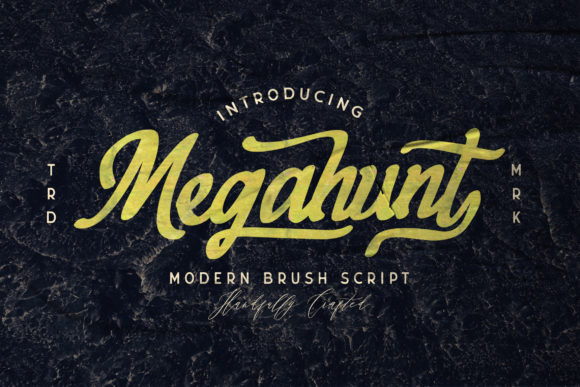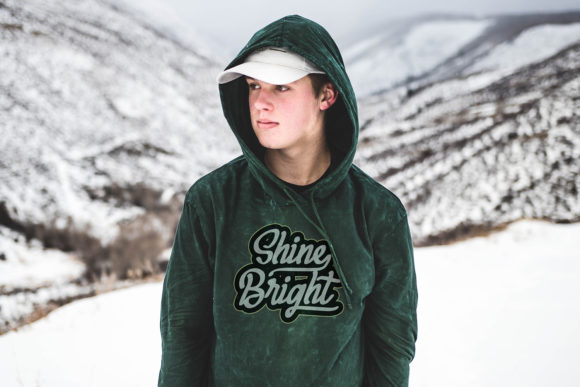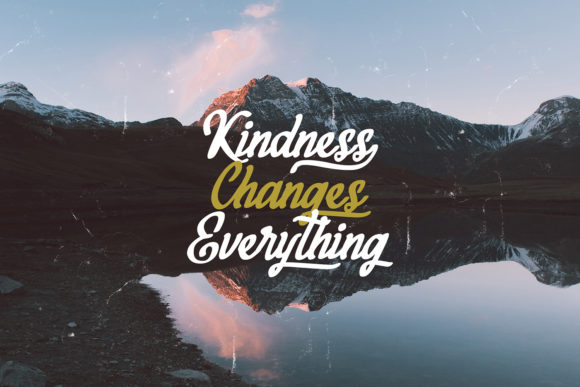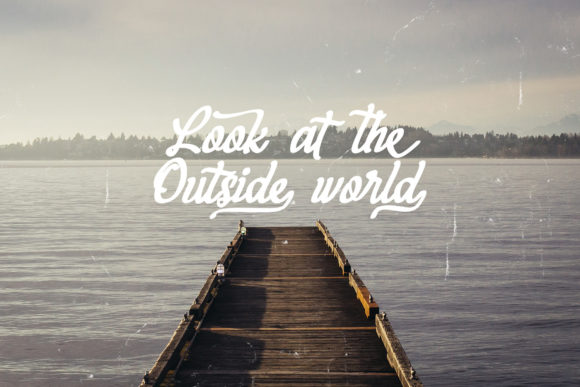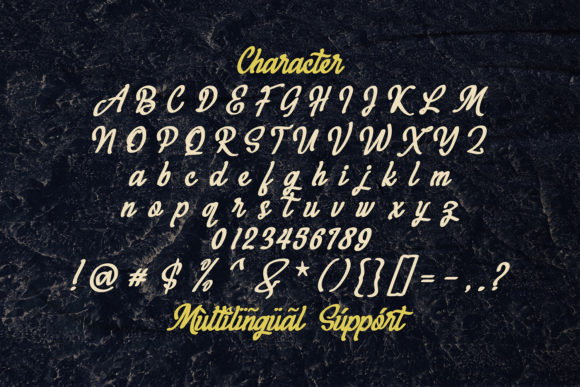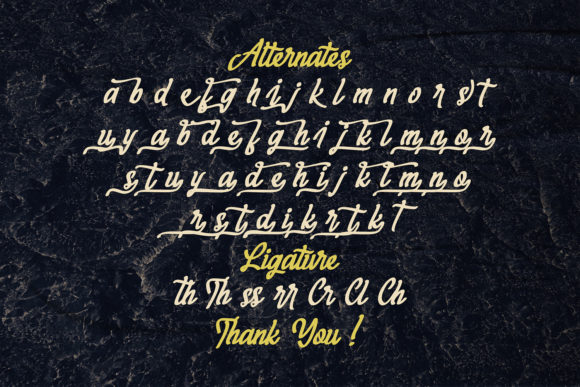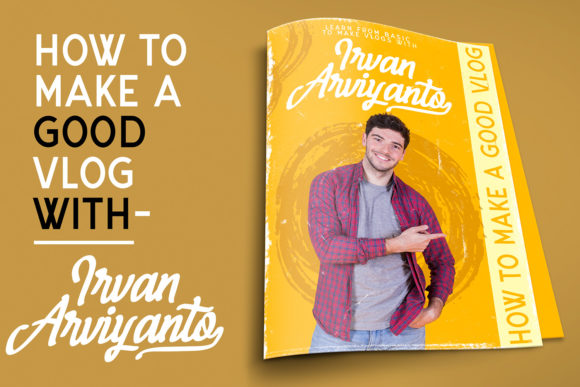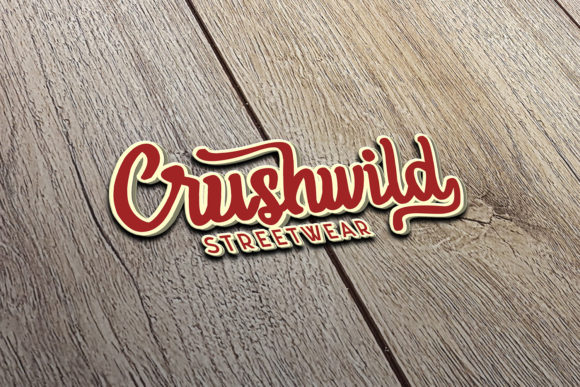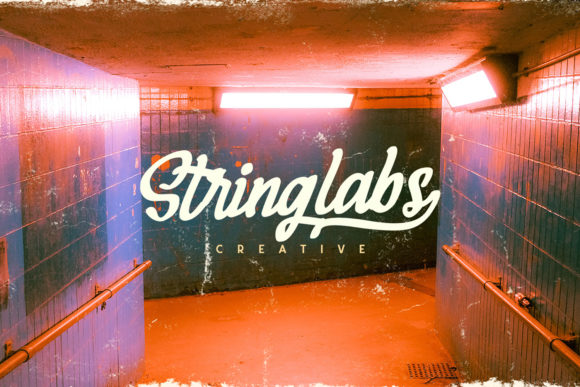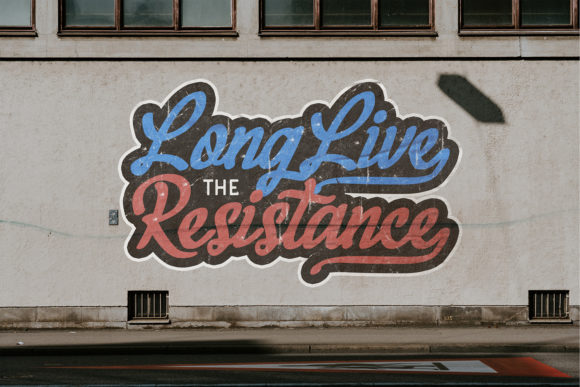
Megahunt Font
About Megahunt Font
Megahunt is inspired by classic typography and brings its own unique style to any design project. This font is perfect for fashion brand, wedding invitations, business cards, logos, signatures, and much more!
This font is PUA encoded which means you can access all of the great glyphs and swashes with ease! It also features a wealth of special features including alternate glyphs and ligatures.